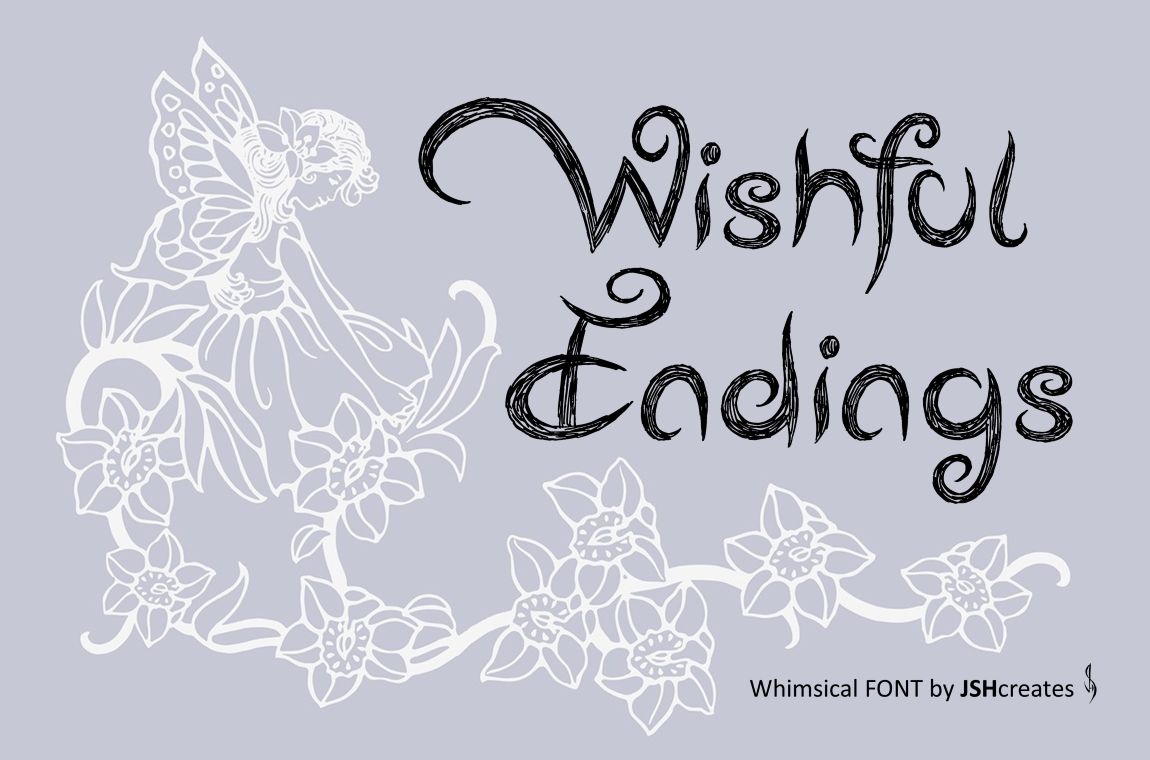
Wishful Endings Font
Fancy font. “Wishful Endings”. Perfect for advertising and display purposes, including banners, book covers, shirts, posters, logos and much more!
Font includes all upper and lowercase letters.